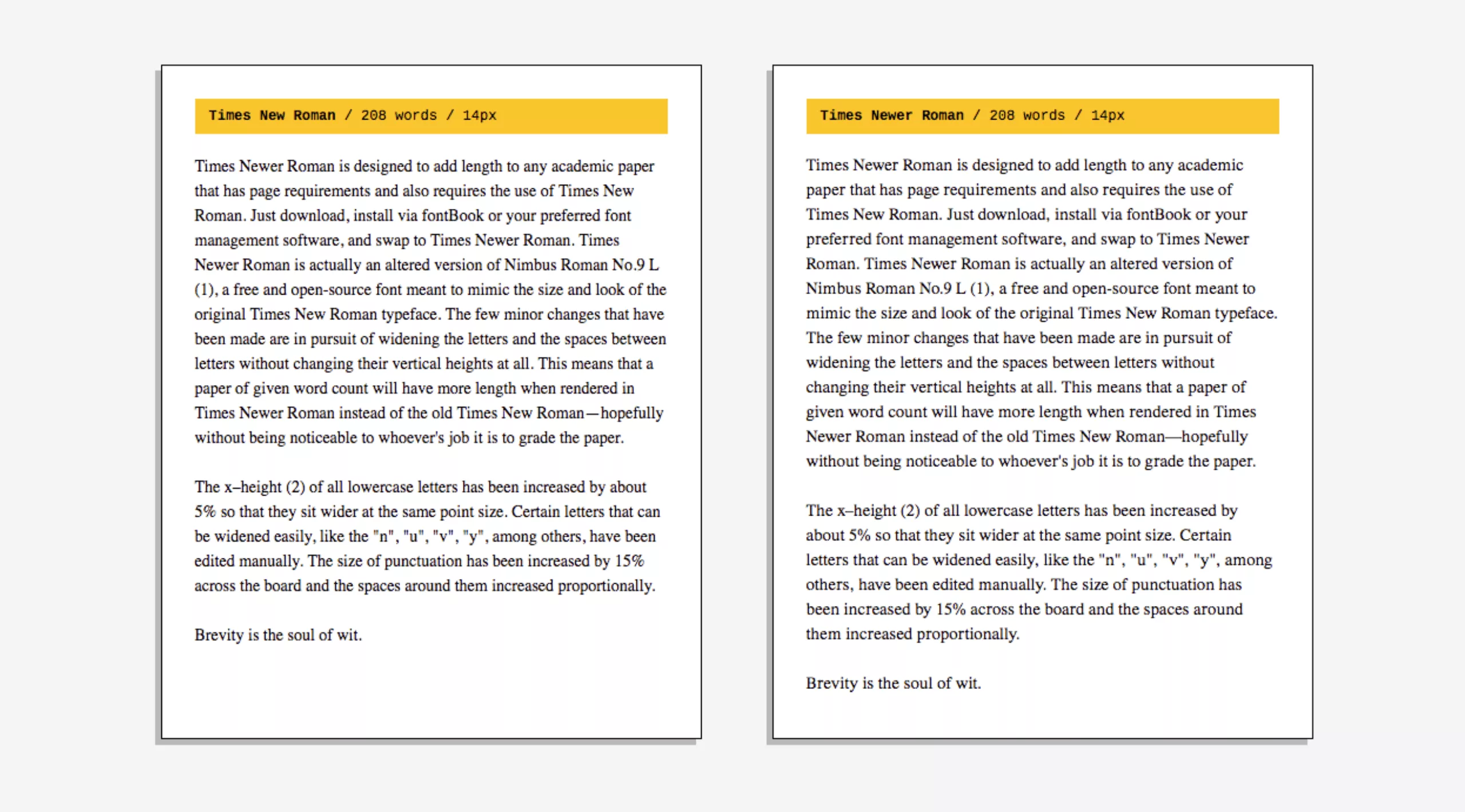
A cheater’s (typographic) typeface!
Get up to 10% more text!
We’ve heard of ecological typography. Now it’s the other way around. A typeface that takes up more space than it needs. If this idea is “ecologically” absurd, it is in its immorality that this typeface becomes interesting.
Let’s get to the heart of the matter. We all know that writing a dissertation or thesis can be an ordeal when it comes to fitting into the official layout grid, and that the value of editorial work begins with measuring the number of pages. From then on, students have learned to “hack” the educational system by slightly enlarging margins, or forcing the inter-lettering of a text by a few millimeters.
With this in mind, the MSCHF agency has created a free font called “Times Newer Roman“. This typeface is based on “Times New Roman”, but its design has been reworked to take up around 10% more space. To the untrained eye, it’s classic “Times New Roman”. In fact, I challenge even the most discerning typography connoisseur to tell the difference!
It would take around 6,680 words to fill 15 pages in Times New Roman font size 12, but with Times Newer Roman, it would take just 5,833 words to do the same.
A cheating character?
Who could have imagined that a tool as modest and discreet as typography could one day be used to cheat! All the more so when we’re talking about a labor typeface * whose etymology is directly derived from the notion of effort and work. In short, a labor typeface made for lazy, cheating people… the idea is almost suddenly poetic!
A reading in which the philosopher reminds us that, when it comes to cheating, Plato posed the only valid moral question through the myth of Gyges’ ring – a ring that renders the wearer invisible, allowing the wearer to conceal his crimes. When Gyges discovers this ring, he takes advantage of it to take the place of his king and marry the queen. The myth of Gyges is one of Plato’s most famous. This story tells us that “those who practice justice act out of impotence to commit injustice” and that “if rule is a mark of civilization, cheating remains a mark of freedom“.
Now that you’ve got the facts, it’s up to you whether you want to cheat or not!
* labor typeface :
There are two main categories of typeface. Titling typefaces and text typefaces, known as labor typefaces because they take much longer to compose. This name dates back to the era of movable lead typefaces…